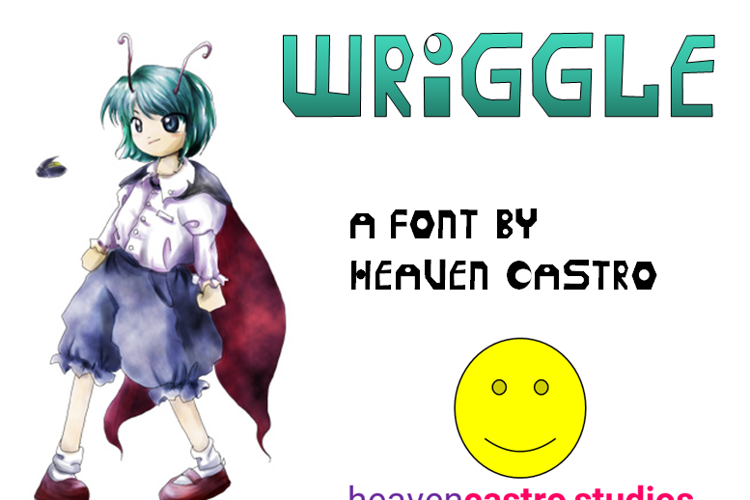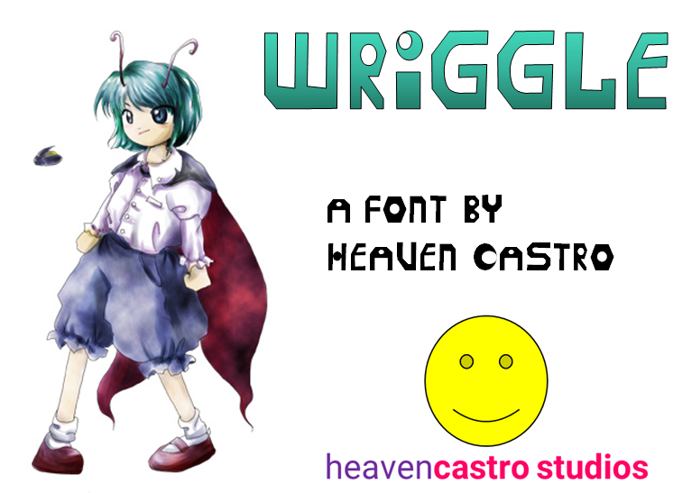
Wriggle Font
About Wriggle Font
Nightbug Style
This font was named after Wriggle Nightbug, a firefly yōkai from the Touhou game Imperishable Night.
This font is a success with the previous font, Mystia.